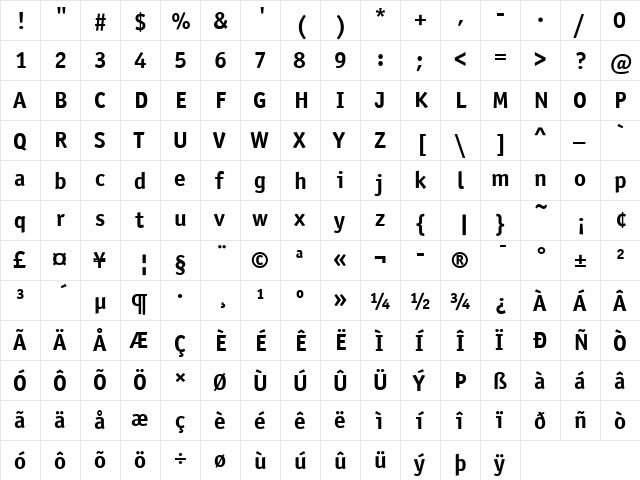
OfficinaSansITC Regular
Design Context for OfficinaSansITC Typeface
OfficinaSansITC offers clean, dependable letterforms without strong stylistic allegiance, making it a practical choice for designers who need flexibility.
Pro Tip: Use OfficinaSansITC in both headline and body roles to test its range before committing to a single application.